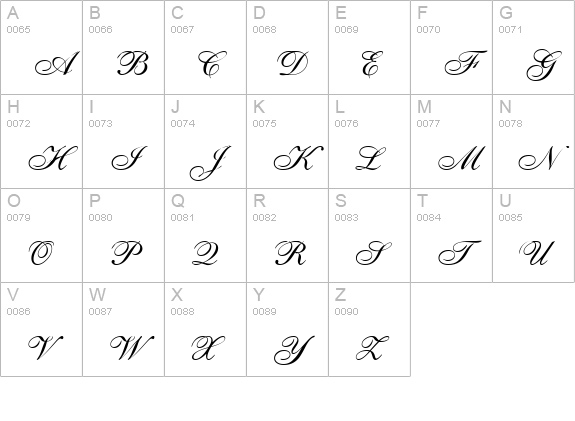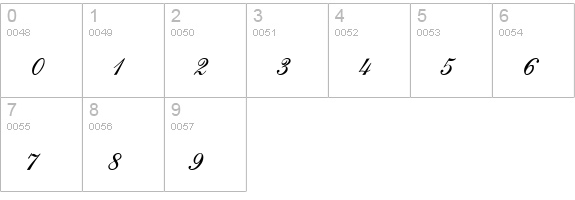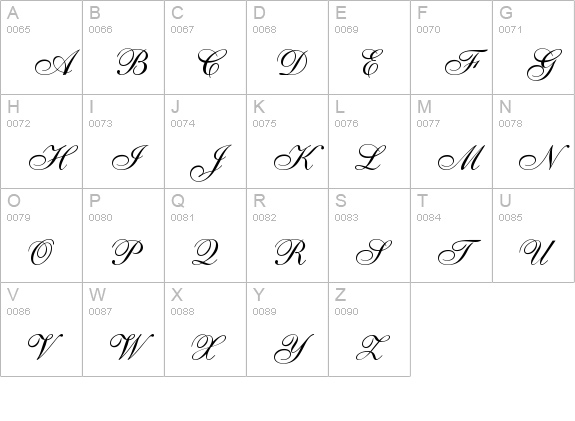
SheerElegance Font Details
Introducing SheerElegance font, a stunning typeface that embodies the essence of sophistication and grace. With its delicate and beautifully crafted letterforms, this font exudes a sense of sheer elegance that will elevate any design project to new heights. SheerElegance font is meticulously designed to strike the perfect balance between classic beauty and contemporary style. Every curve and stroke has been carefully crafted to create a harmonious visual flow that captivates the eye and offers a truly mesmerizing reading experience. With its versatile nature, SheerElegance font is a perfect choice for a wide range of applications. Whether you're designing wedding invitations, branding materials, elegant logos, or editorial layouts, this font will add a touch of refined sophistication to your creations. But what makes SheerElegance font even more remarkable is that it is completely free! Yes, you heard it right. This exquisite font is freely available to download at FontsMarket.com, a trusted source for high-quality fonts. Now you can enjoy the beauty and elegance of SheerElegance font without any cost or restrictions. So why wait? Download SheerElegance font today and unlock a world of elegance and refinement for your design projects. Let the timeless beauty of this font elevate your creations and make a lasting impression on your audience. Experience the sheer elegance that this font embodies and let your designs shine with sophistication.